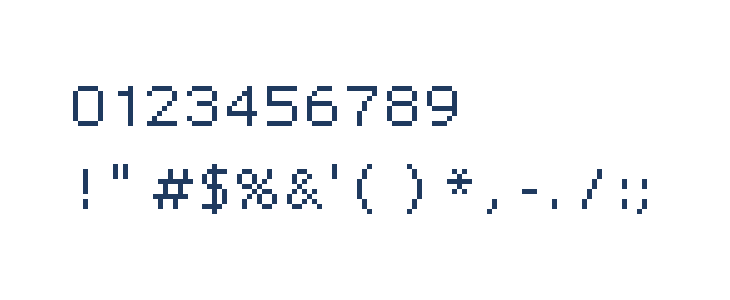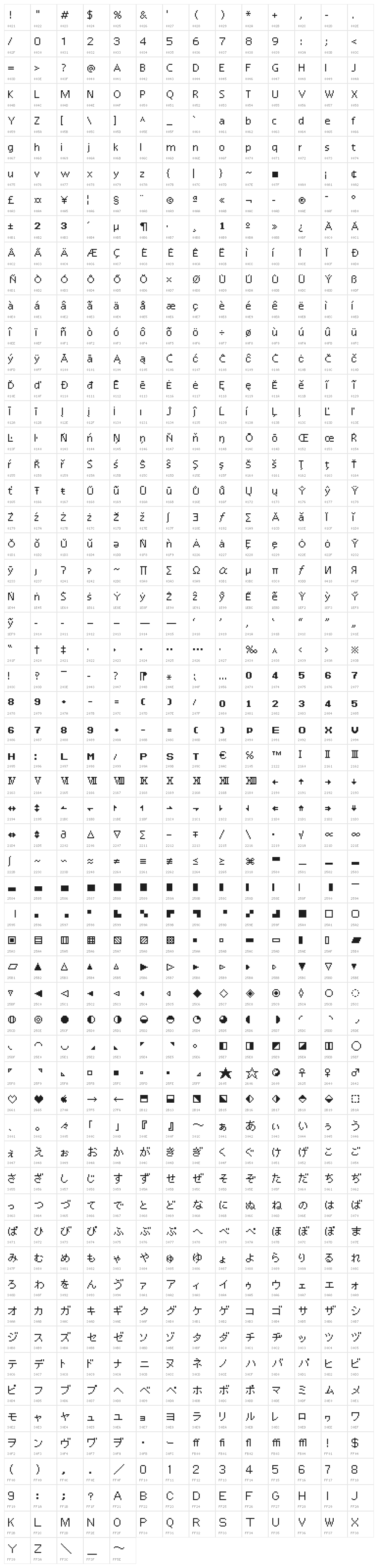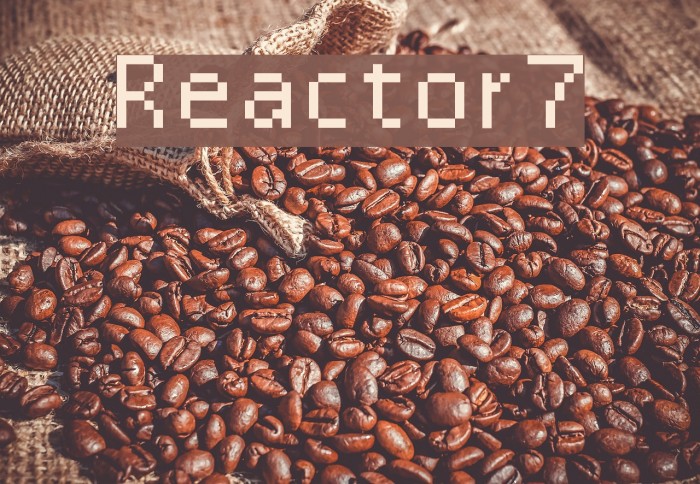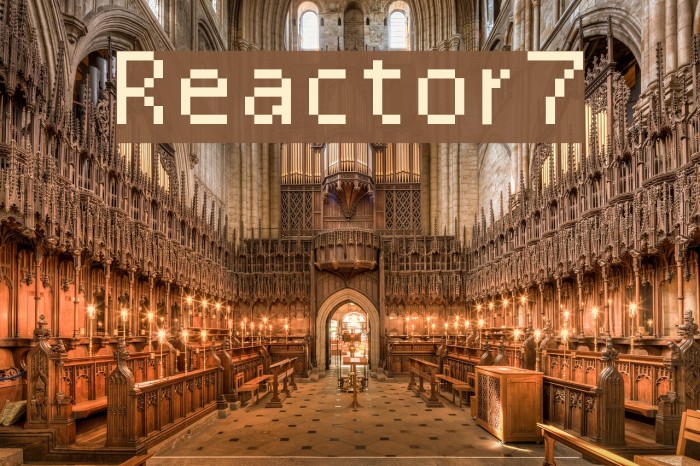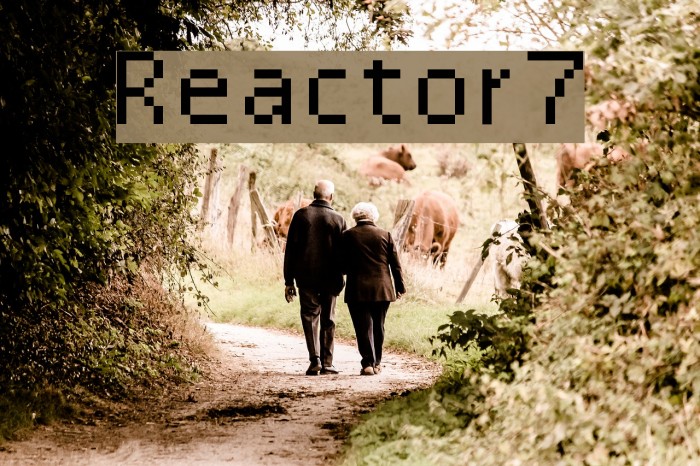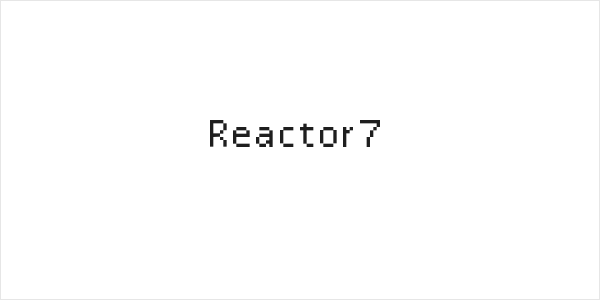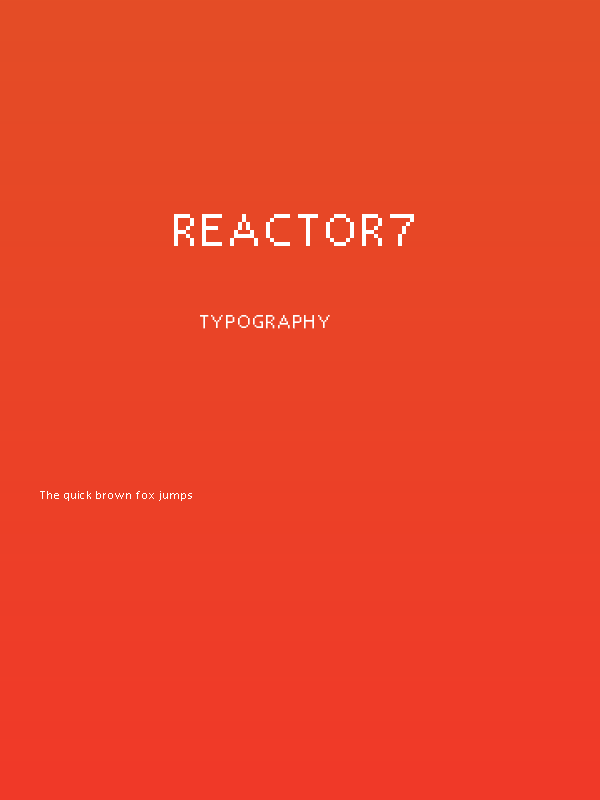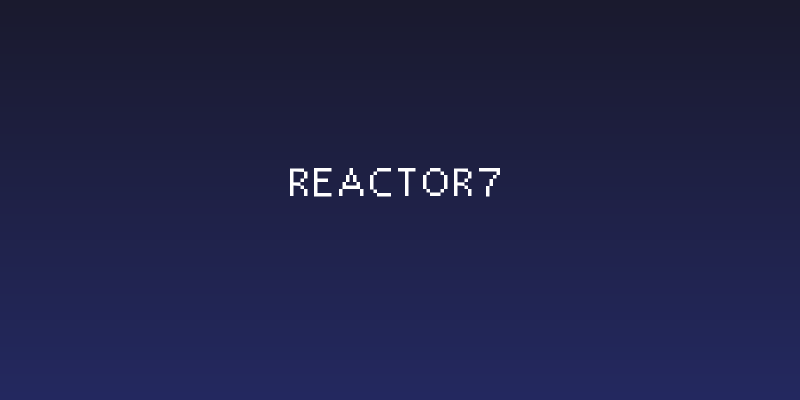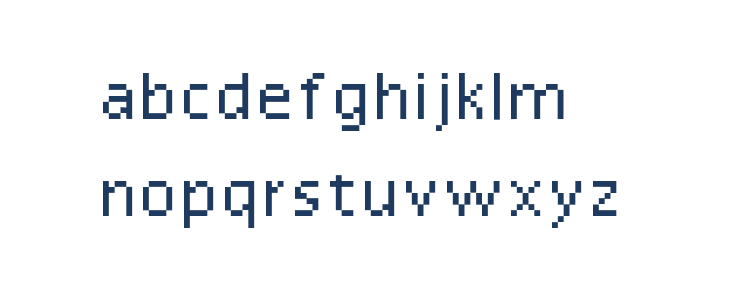
Reactor7 Font
Reactor7 Description
This font features a pixelated, grid-like design reminiscent of early digital displays and retro video games. Each character is constructed with a uniform square grid, giving it a distinctly blocky and geometric appearance. The uppercase and lowercase letters maintain a consistent height, with minimal differentiation in stroke width, creating a monospaced effect. The numerals and special characters follow the same pixelated style, ensuring visual harmony across all glyphs. This font's simplicity and clarity make it highly legible, even at smaller sizes, while its nostalgic aesthetic evokes a sense of vintage computing.
| Use Case | Headlines, Logos, Digital displays |
| Proposed Projects | Ideal for retro-themed designs, video game graphics, digital art projects, and tech-related branding. |